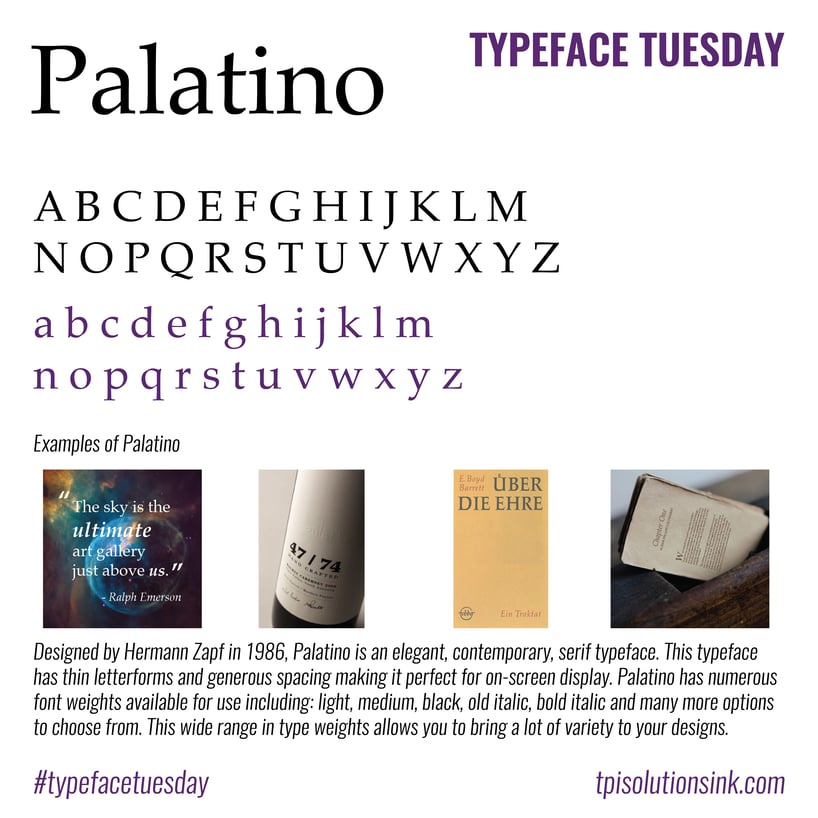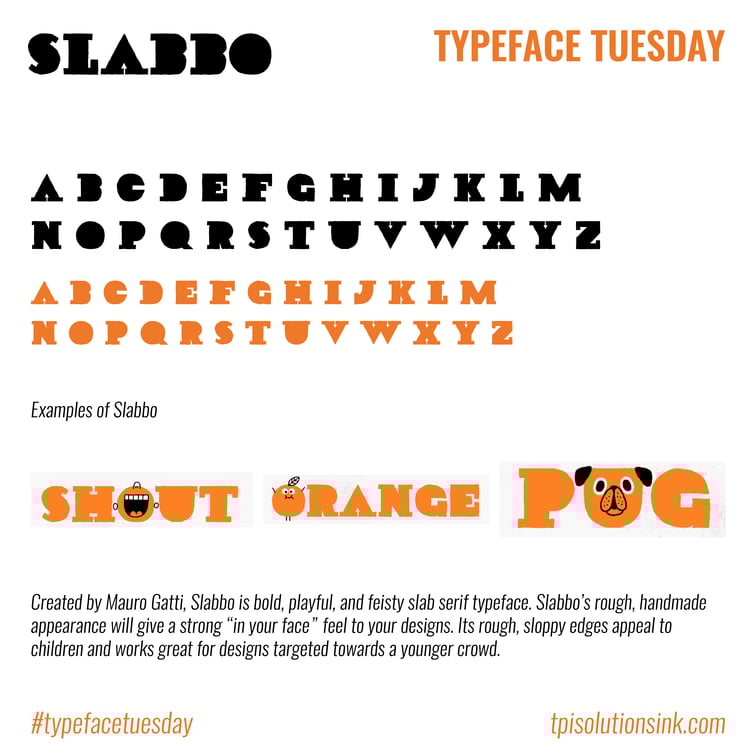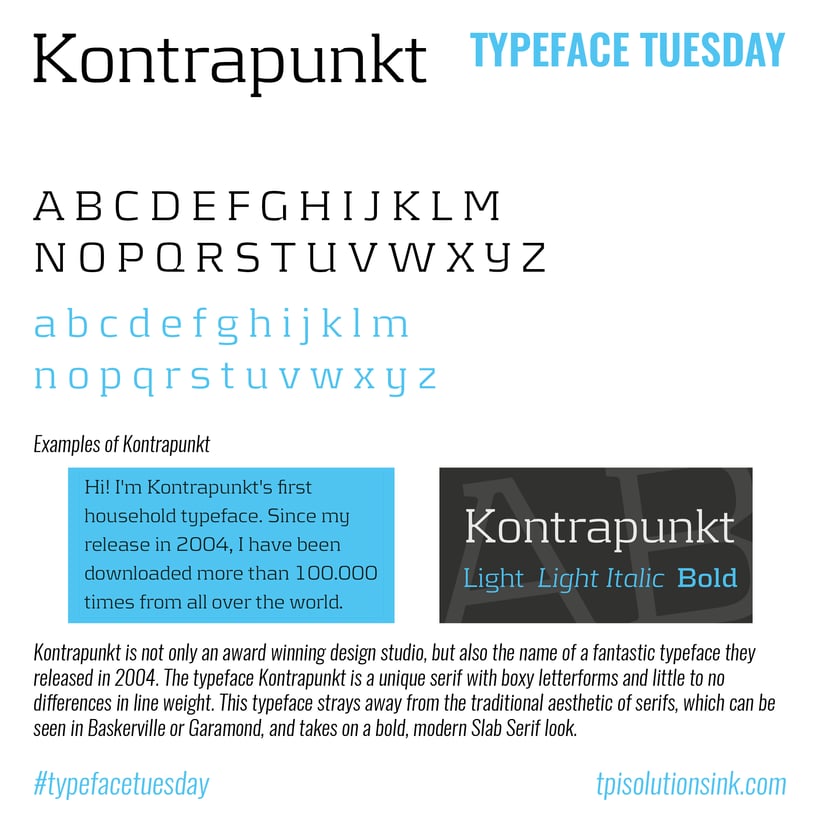
title: Typeface Tuesday Recap – August 2017
# Typeface Tuesday Recap – August 2017
Let's wrap up August with our Typeface Tuesday recap! Which one did you like best?
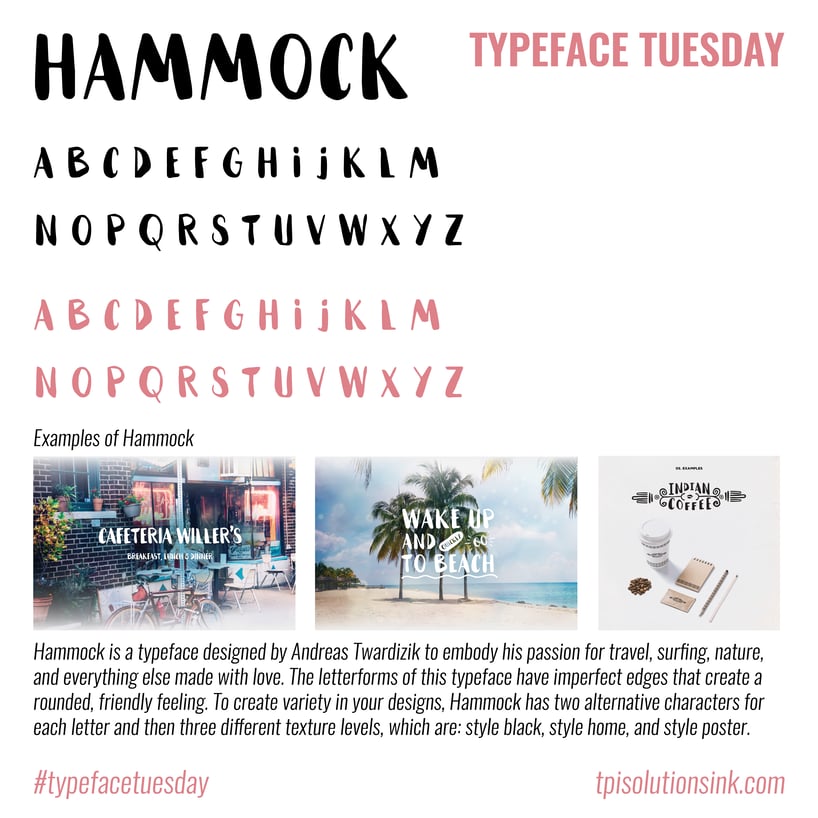
**![TPI Solutions Ink – Typeface Tuesday – Hammock](https://www.tpisolutionsink.com/hs-fs/hubfs/Typeface_Tuesdays/2017/8_August/TT_Hammock.png?width=818&name=TT_Hammock.png "TPI Solutions Ink – Typeface Tuesday – Hammock")**
**![TPI Solutions Ink – Typeface Tuesday – Palatino](https://www.tpisolutionsink.com/hs-fs/hubfs/Typeface_Tuesdays/2017/8_August/TT_Palatino.png?width=818&name=TT_Palatino.png "TPI Solutions Ink – Typeface Tuesday – Palatino")**
**![TPI Solutions Ink – Typeface Tuesday – Slabbo](https://www.tpisolutionsink.com/hs-fs/hubfs/Typeface_Tuesdays/2017/8_August/TT_Slabbo.png?width=756&name=TT_Slabbo.png "TPI Solutions Ink – Typeface Tuesday – Slabbo")**